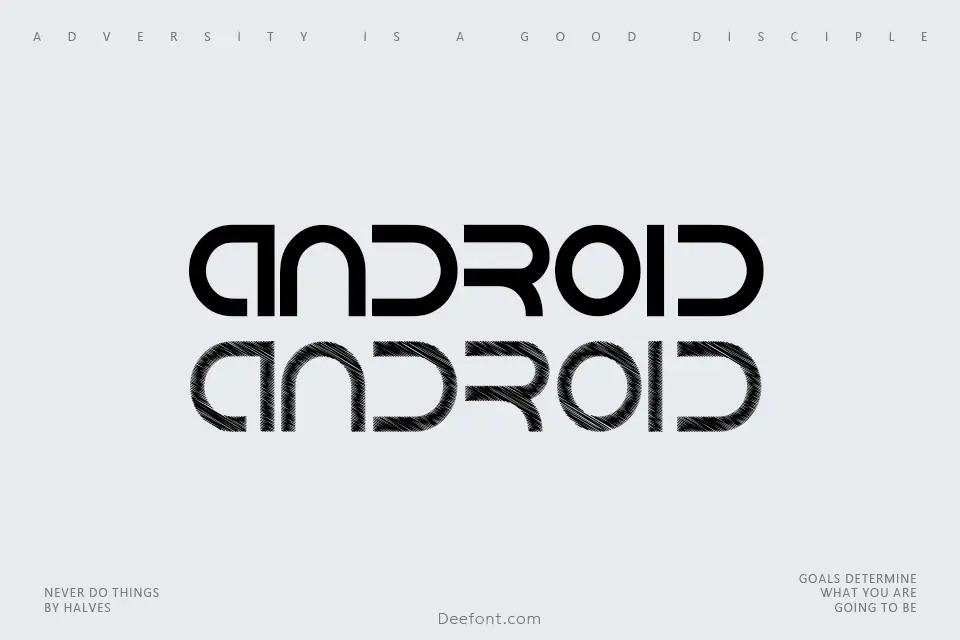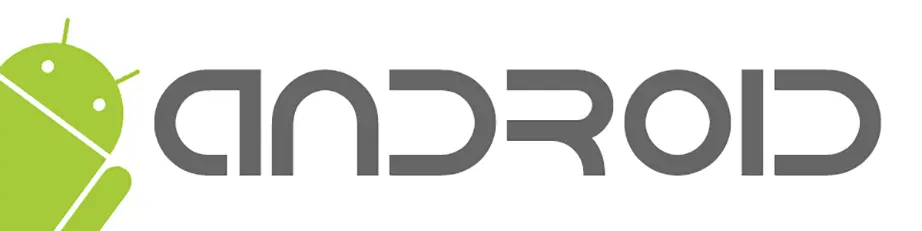
Android Font
Android Font is a futuristic and geometric typeface characterized by bold strokes and tight character spacing, designed by Isaac K. This display font features a sleek, modern aesthetic with consistent uppercase and lowercase letter heights. Its contemporary design makes it ideal for technology branding, sci-fi posters, video game titles, and digital interfaces. The font’s compact and efficient styling contributes to its space-age appearance, making it a perfect choice for projects requiring an innovative and cutting-edge touch.